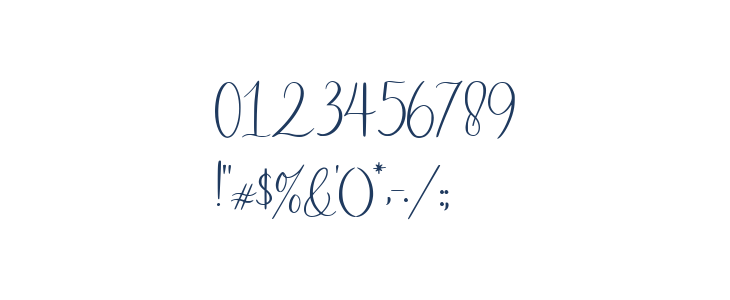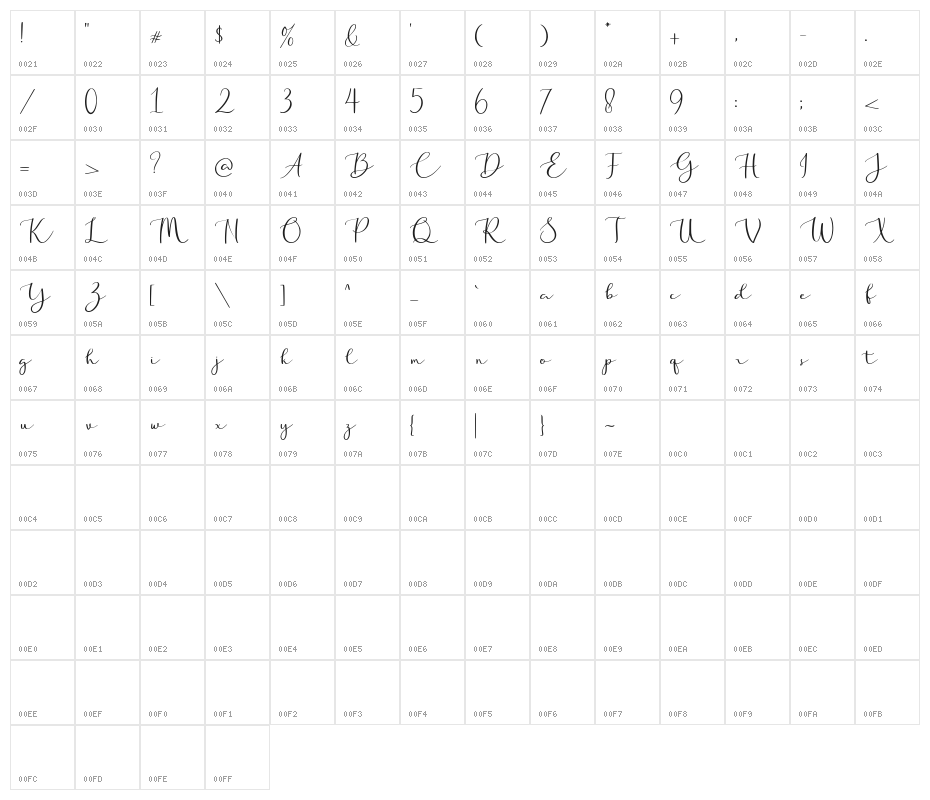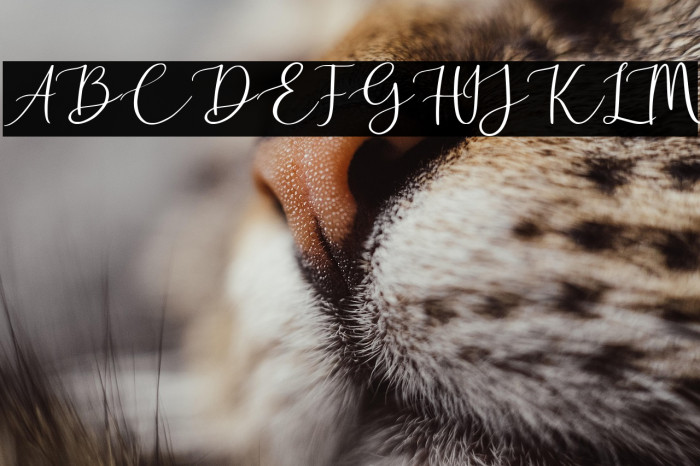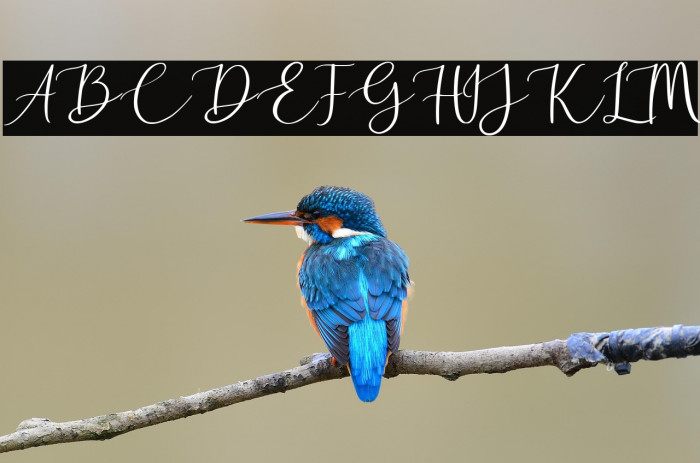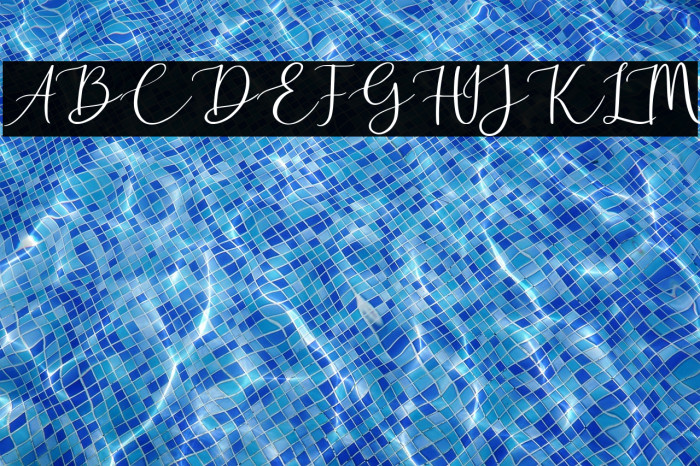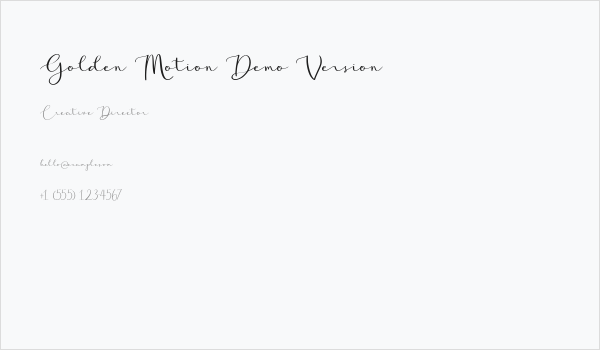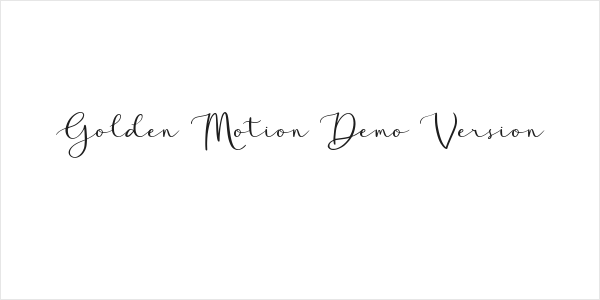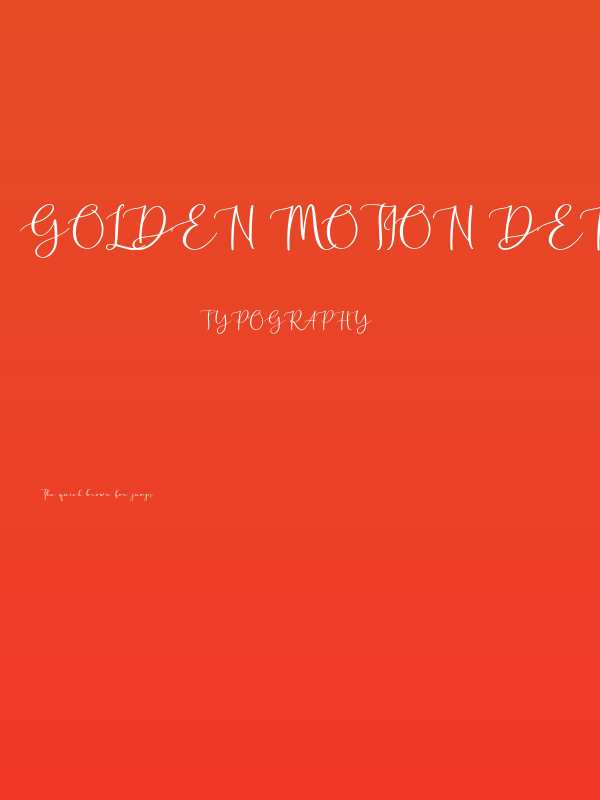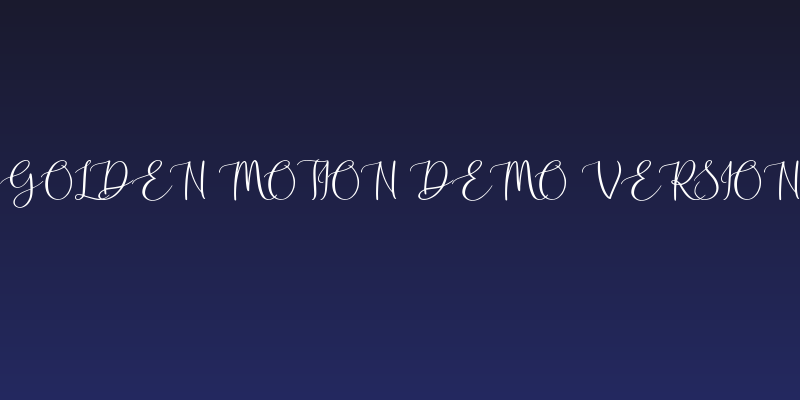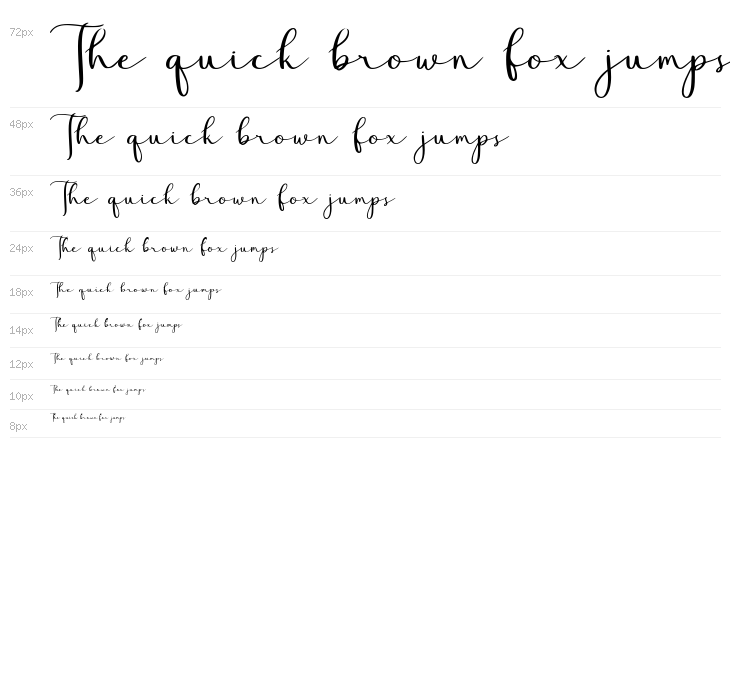
Golden Motion Demo Version Font
Golden Motion Demo Version Description
This elegant script font exudes a sense of fluidity and grace, characterized by its flowing, cursive letterforms. The uppercase letters are tall and slender, with sweeping curves and delicate loops that give them a sophisticated appearance. The lowercase letters maintain a consistent style, with smooth connections between characters, enhancing the font's readability. The numerals are stylishly crafted, matching the overall aesthetic with their curvaceous forms. Special characters are thoughtfully designed, maintaining the font's cohesive look. This font is perfect for projects that require a touch of elegance and refinement.
| Overall Style | Elegant, Decorative |
| Proposed Projects | Ideal for wedding invitations, elegant branding, greeting cards, and upscale packaging. |